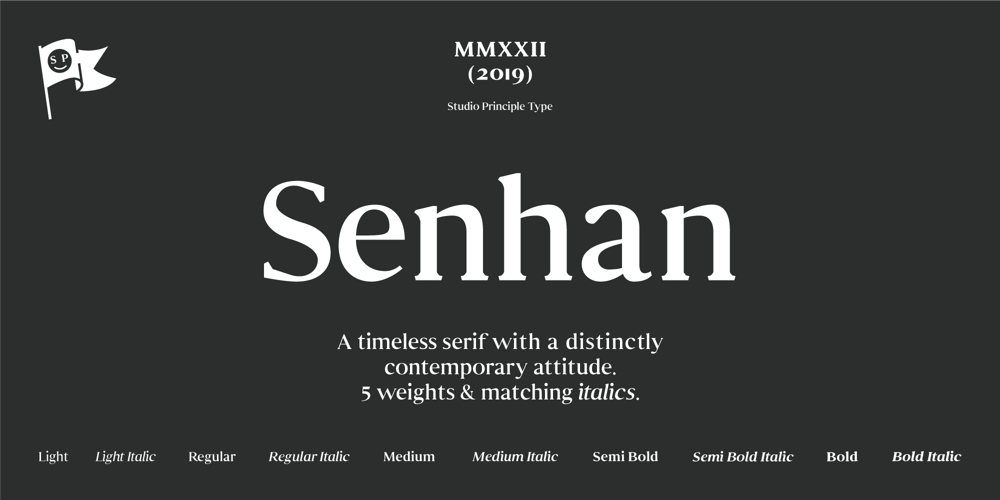
Senhan
Senhan font
Senhan Font Family was designed by Craig Hansen and published by Studio Principle Type. Senhan contains 10 styles and family package options. A timeless serif with a distinctly contemporary attitude. The Senhan font family makes a statement with confidence. Defined by sexy, sharp, angular contours when used in headline and display scenarios, this family of 5 weights and italics is a real eye-catcher. But with a tall’ish x-height for legibility, and a medium contrast, Senhan is a workhorse at small sizes and in lengthy blocks of copy.